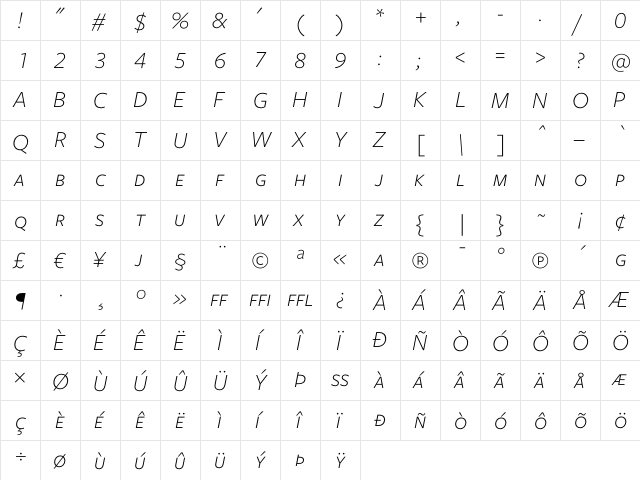
Freight Sans Light Italic SC
| Foundry | Joshua Darden & Phil's Fonts, Inc |
| Designer | Joshua Darden |
Design Context for Freight Typeface
Freight takes a measured approach to typography — its balanced proportions and neutral character make it a reliable workhorse for both digital and print work. The slanted form adds forward momentum and visual energy. The delicate stroke weight brings airiness and refinement to layouts.
Pro Tip: Use Freight for emphasis, pull quotes, and subheadings where its slanted energy can add rhythm to the layout.